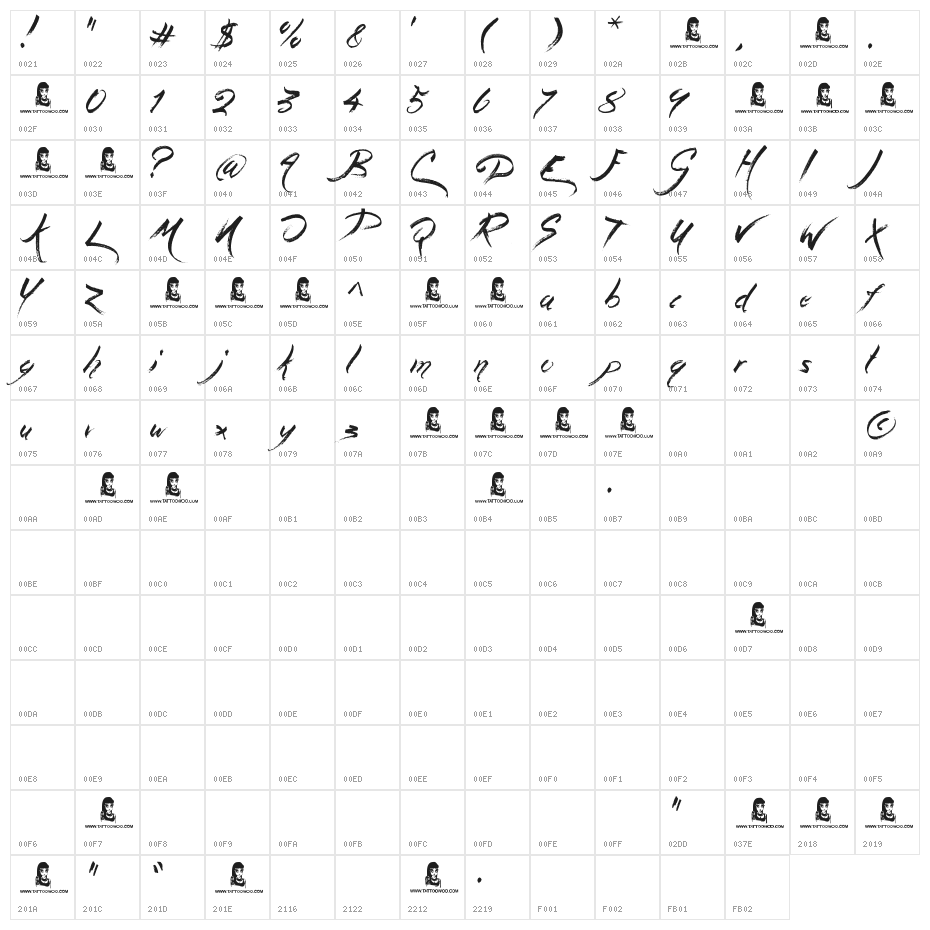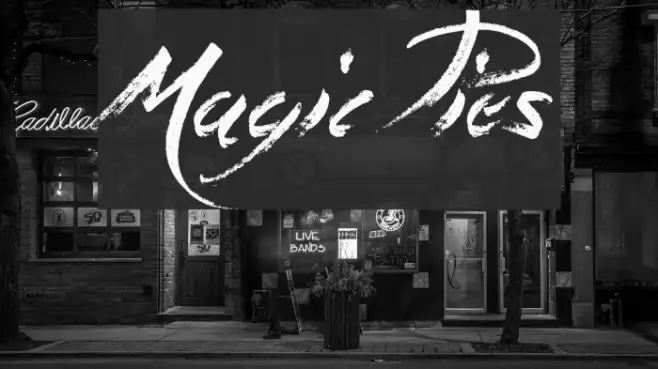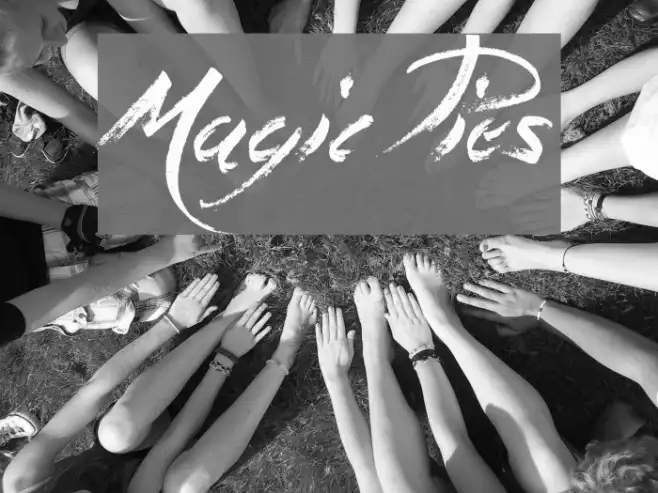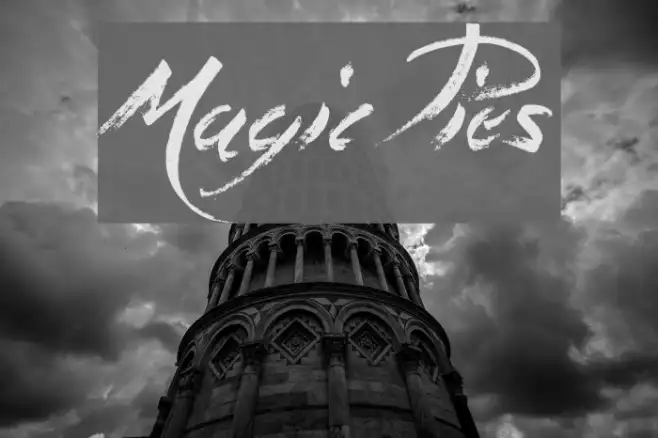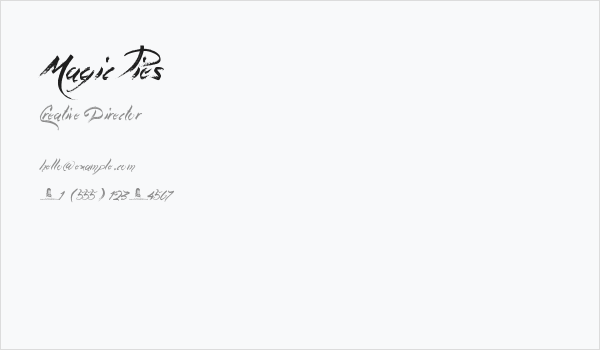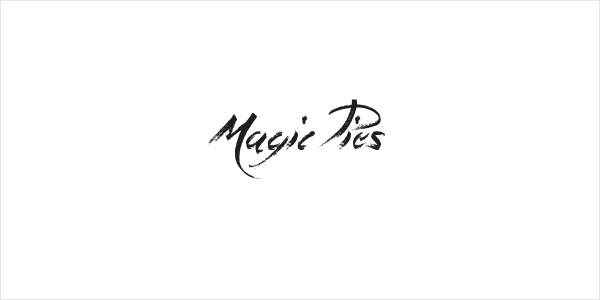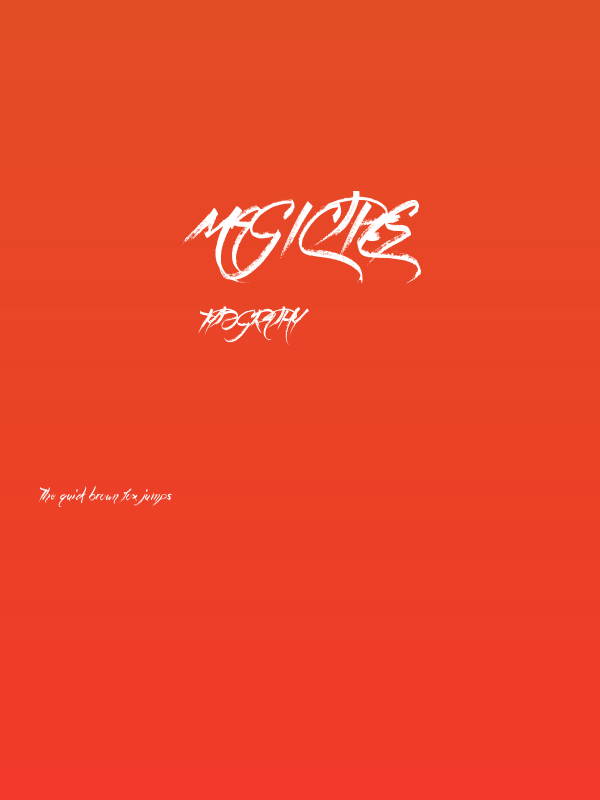
Magic Pies Font
Magic Pies Description
This font exhibits a bold and expressive brush script style, characterized by its dynamic and energetic strokes. The letters are crafted with a rough, textured appearance, giving them a hand-painted feel. The uppercase and lowercase letters maintain a consistent flow, while the numbers and special characters complement the overall aesthetic. The font's design is reminiscent of street art or graffiti, making it suitable for projects that require a bold and artistic touch.